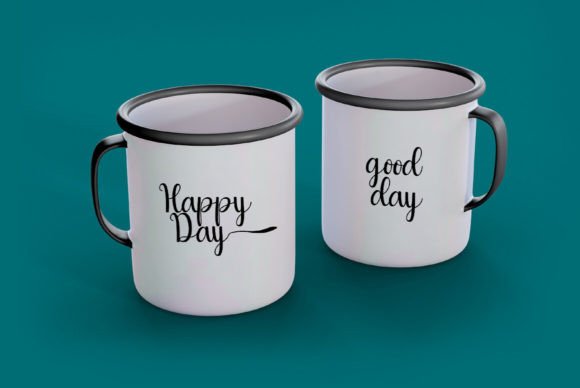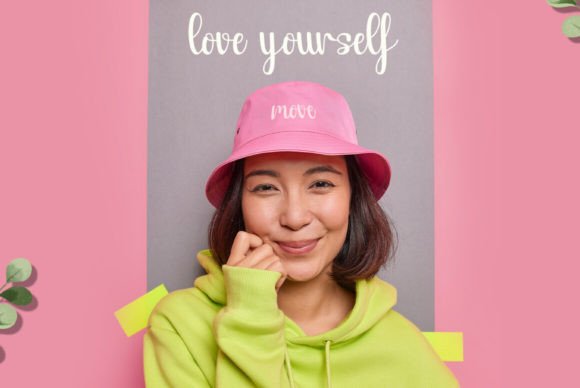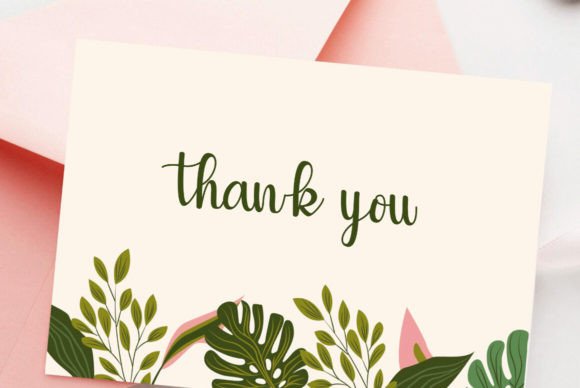
Discover the Elegance of Healing Font: Elevate Your Designs with a Touch of Sophistication
In the world of typography, fonts play a crucial role in conveying the tone and personality of a brand or artistic project. For designers and crafters seeking to infuse their work with a sense of elegance and refinement, the Healing font is an exceptional choice. This modern handwritten typeface has been meticulously crafted to blend playful charm with distinguished sophistication, making it an ideal selection for high-end packaging, bespoke branding, and fashionable editorial layouts.
The Unique Allure of Healing Font
Healing font is characterized by its organic, fluid strokes and exquisitely fashioned alphabets, which together create a mesmerizing allure that can elevate any artistic endeavor to new heights of beauty and grandeur. The font’s unique charm lies in its ability to meld seemingly disparate elements – playfulness and refinement, creativity and sophistication – into a cohesive and visually stunning whole.
One of the key features that sets Healing font apart is its handwritten quality. In an era where digital fonts are ubiquitous, the warmth and personality of a handwritten typeface can be a breath of fresh air. Healing font’s carefully crafted letters seem to dance across the page, imbuing any design with a sense of artisanal finesse and human touch.
Applications for Healing Font
The versatility of Healing font makes it suitable for a wide range of applications, from high-end packaging and bespoke branding to fashionable editorial layouts and digital media. Whether you’re looking to create a luxurious brand identity, craft a compelling editorial spread, or design eye-catching packaging, Healing font is the perfect choice.
For designers and crafters working on branding projects, Healing font offers a unique opportunity to create a distinctive and memorable visual identity. Its elegant, refined aesthetic makes it an excellent fit for luxury brands, while its playful undertones ensure that it remains approachable and engaging.
Why Choose Healing Font?
So why choose Healing font for your next design project? Here are just a few compelling reasons:
- Elegance and sophistication: Healing font’s refined aesthetic makes it perfect for high-end applications and luxury brands.
- Playful charm: The font’s handwritten quality and organic strokes add a touch of playfulness and creativity to any design.
- Versatility: Healing font is suitable for a wide range of applications, from packaging and branding to editorial layouts and digital media.
- Artisanal finesse: The font’s unique charm and character add a touch of artisanal finesse to any design, making it perfect for crafters and designers seeking to create something truly special.
| Font Name | Healing Font |
| Author | Hardiboy Design |
In conclusion, Healing font is a truly exceptional typeface that offers designers and crafters a unique opportunity to elevate their work with a touch of elegance and sophistication. Its mesmerizing allure, organic strokes, and exquisitely fashioned alphabets make it the perfect choice for high-end packaging, bespoke branding, and fashionable editorial layouts. Whether you’re looking to create a luxurious brand identity, craft a compelling editorial spread, or design eye-catching packaging, Healing font is the perfect choice. So why wait? Experience the irresistible allure of Healing font for yourself and take your designs to new heights of beauty and grandeur.